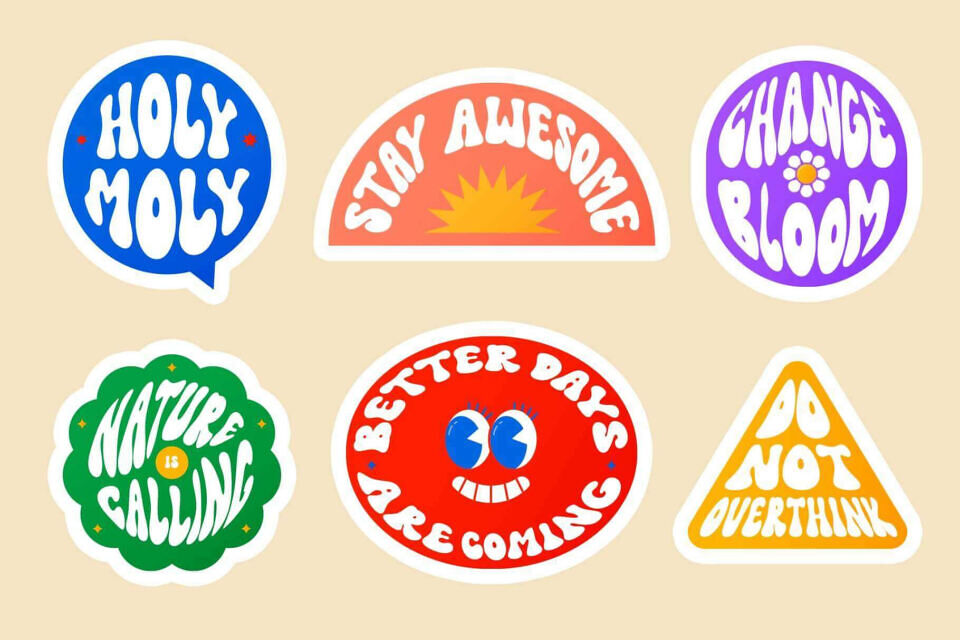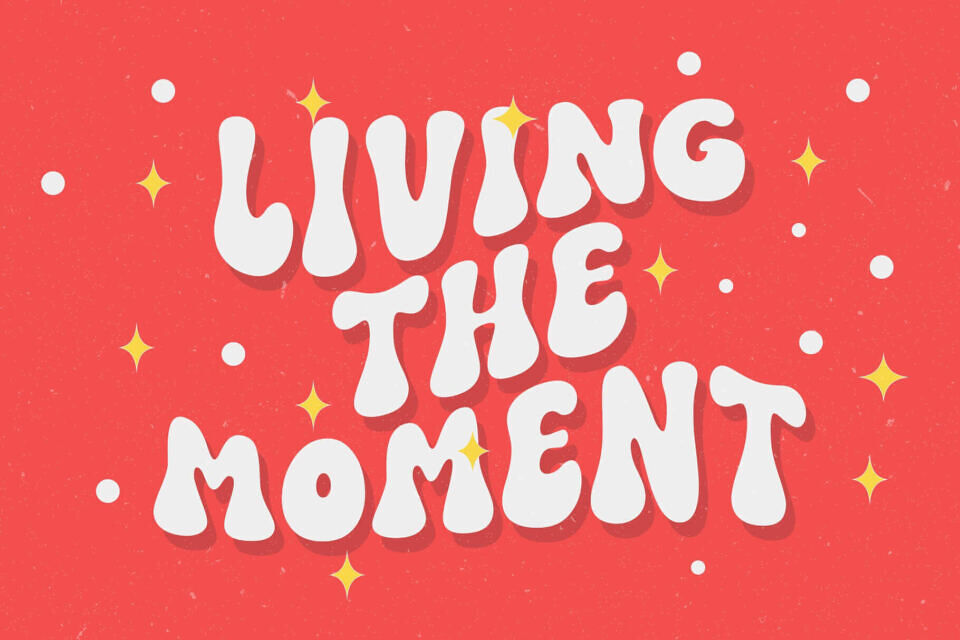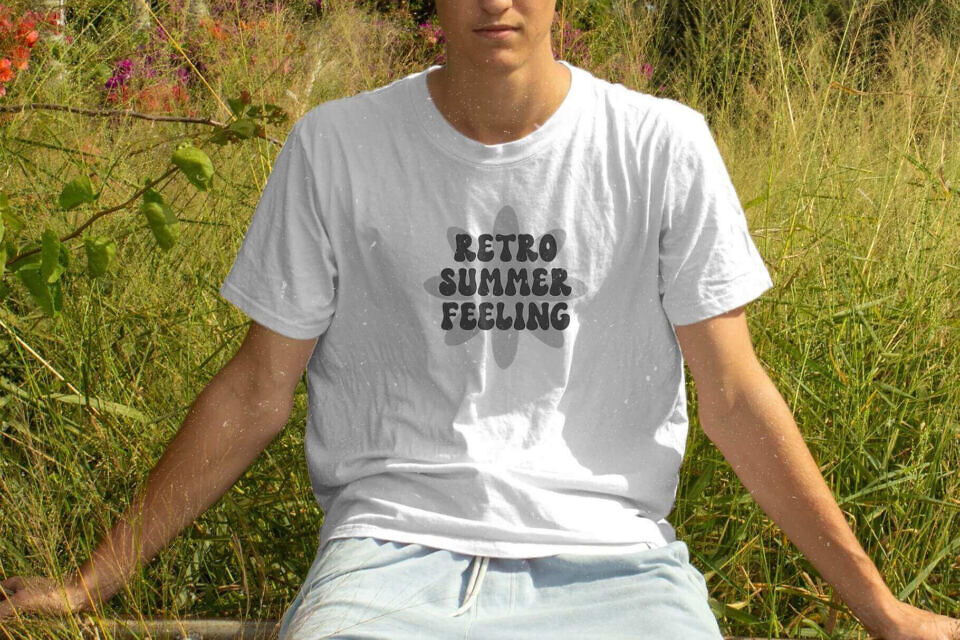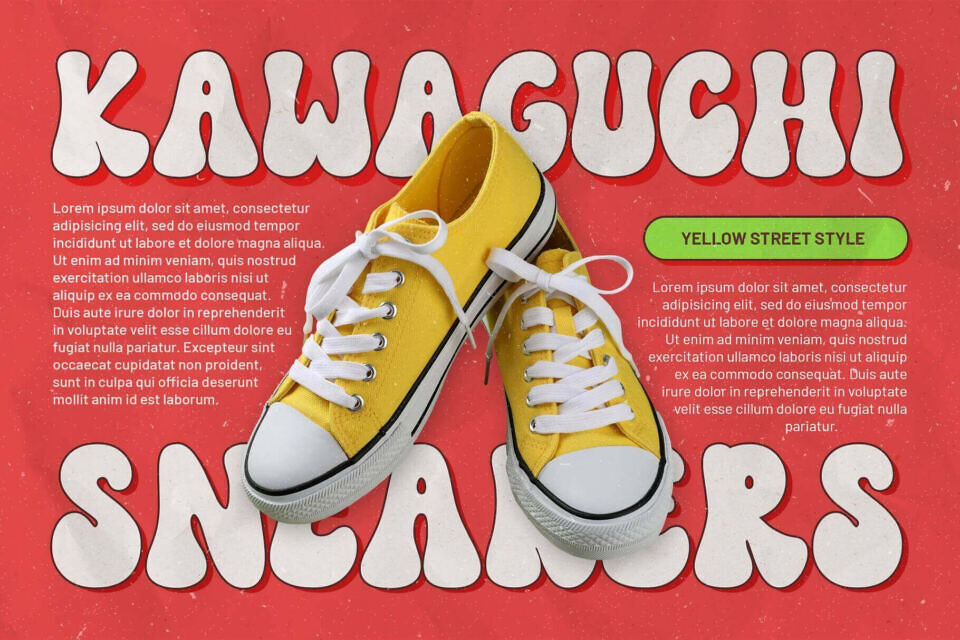
Retro Letter Font
Bring back the groovy vibes with Retro Letter Font, a bold and playful retro font designed to add charm, fun, and vintage energy to your creative projects. Inspired by 70s bubble typography, this bubble font blends retro aesthetics with modern versatility, making it the perfect fancy font for eye-catching designs.
Its unique shapes and curves capture the essence of groovy fonts, while still staying adaptable as modern fonts for today’s creative needs. The retro style also works as a logo font, poster font, or lettering bubble font, offering a nostalgic yet stylish look.